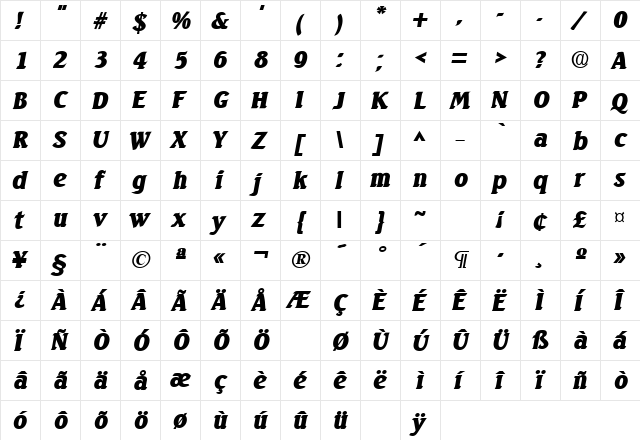
SeagullLH Bold Italic Font Preview
Design Context for SeagullLH Typeface
SeagullLH takes a measured approach to typography — its balanced proportions and neutral character make it a reliable workhorse for both digital and print work. The dynamic lean of this cut emphasises speed and emphasis in any layout. The heavy weight commands attention and anchors typographic hierarchies.
Pro Tip: Try SeagullLH for annotation and caption copy alongside an upright companion — the contrast in angle creates a dynamic but ordered typographic system.